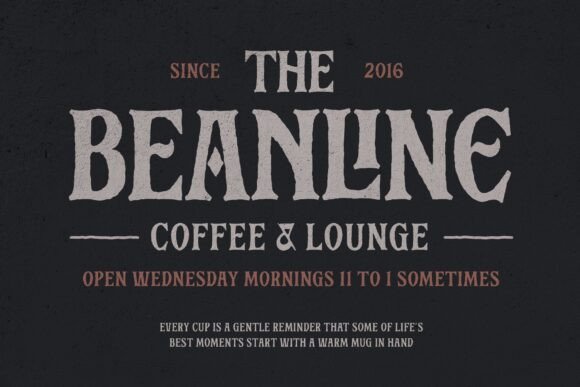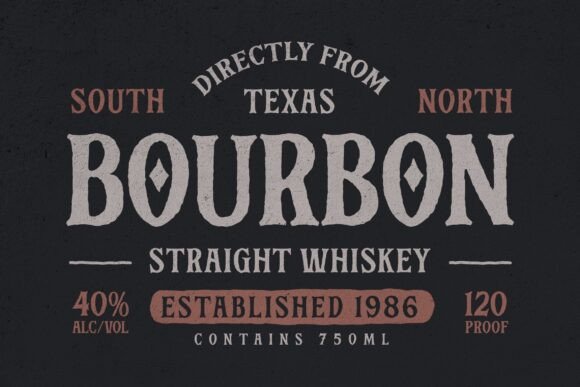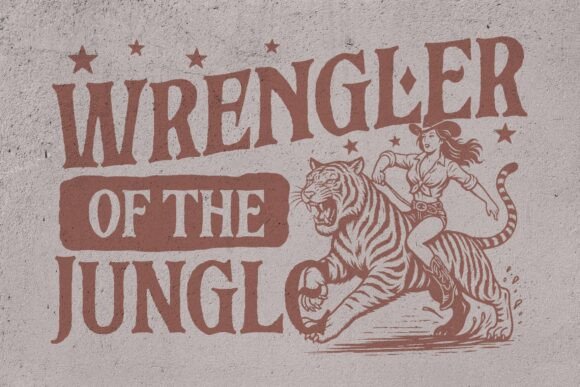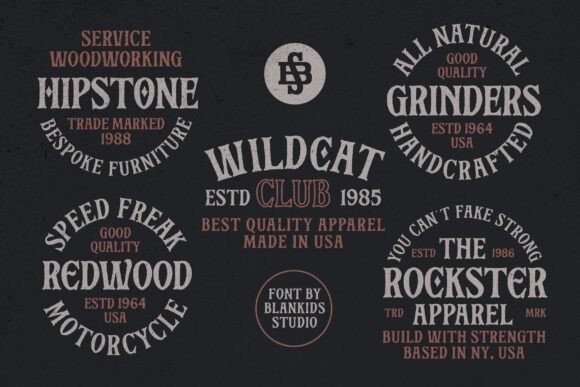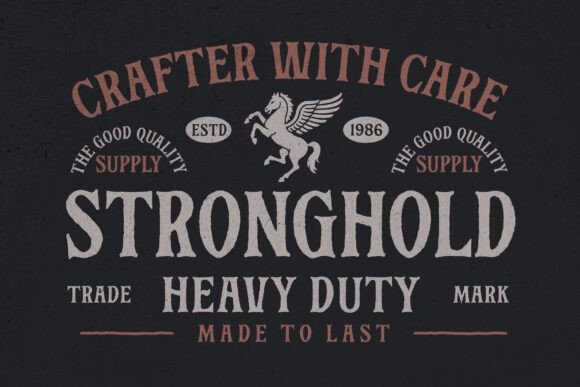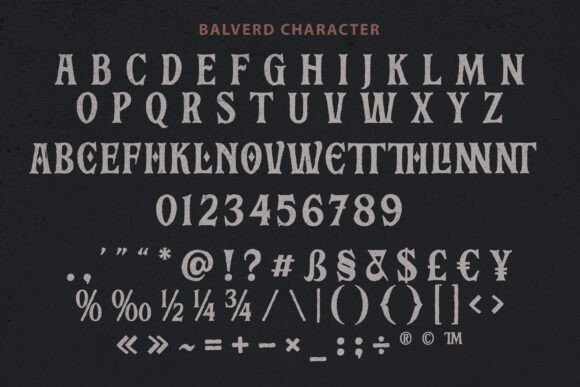
Introducing Balverd Font: Elevate Your Designs with a Touch of Vintage Elegance
Are you on the hunt for a font that adds a dash of sophistication and nostalgia to your professional projects? Look no further than Balverd Font, a stunning vintage serif font designed to elevate your branding, marketing materials, and creative endeavors. With its classic design and versatility, Balverd Font is perfect for logotypes, watermarks, posters, branding, promotions, product packaging, and more.
The Charm of Balverd Font
Balverd Font boasts a unique vintage-style design that is sure to captivate your audience. Every letter, numeral, and punctuation mark has been carefully crafted to exude a sense of nostalgia and refinement. The font’s serif details add a touch of elegance, making it an excellent choice for designers and crafters seeking to create high-end visuals.
What to Expect from Balverd Font
When you choose Balverd Font, you can expect a comprehensive set of characters, including:
- Full set of vintage uppercase and lowercase letters
- Numerals and punctuation marks
This extensive character set ensures that you have everything you need to create stunning designs, from logos and typographic posters to product packaging and promotional materials.
With Balverd Font, the design possibilities are endless. Here are just a few ideas to get you started:
- Create a memorable logo that showcases your brand’s personality
- Design eye-catching posters and flyers that grab attention
- Develop a cohesive brand identity with custom watermarks and typography
- Elevate your product packaging with elegant labels and tags
- Craft compelling promotional materials, such as brochures and business cards
Why Choose Balverd Font?
So, what sets Balverd Font apart from other fonts on the market? Here are just a few reasons why designers and crafters love Balverd Font:
- Unique vintage-style design that adds a touch of sophistication to any project
- Comprehensive character set for maximum versatility
- Perfect for professional projects, including branding, marketing, and packaging
- Easily readable and legible, even at small sizes
Get Inspired with Balverd Font
To see Balverd Font in action, take a look at the previews above. Get inspired by the endless design possibilities and imagine how this stunning font can elevate your projects. Whether you’re a seasoned designer or a crafty DIY enthusiast, Balverd Font is sure to become a favorite in your collection.